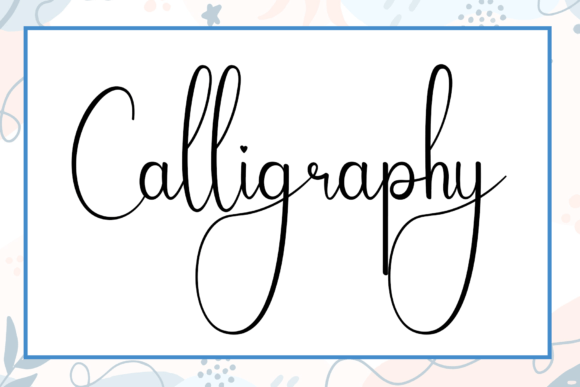
The Sweet Charm of Calligraphy Font: A Designer’s Delight
I’ll never forget the time I was working on a wedding invitation project, and my client asked for a font that was ” elegant, yet playful” and “would make their guests feel like they’re part of a special celebration”. I scoured the internet, tried out dozens of fonts, but nothing seemed to fit the bill. That was until I stumbled upon Calligraphy Font – a sweet and friendly handwritten font that instantly captured the essence of the occasion. In this article, I’ll share my love for this charming font, its features, and how to make the most of it in your designs.
- ✅ Cute and Fun: Calligraphy Font is perfect for adding a playful touch to your designs, making it ideal for wedding invitations, cards, and other celebratory materials.
- ✅ Elegant yet Approachable: This font strikes the perfect balance between sophistication and friendliness, making it suitable for a wide range of projects.
- ✅ Easy to Read: Despite its decorative nature, Calligraphy Font remains highly legible, even at smaller font sizes.
- ⚠️ Limited Multilingual Support: While Calligraphy Font covers the basic English alphabet, it may not support more complex languages or special characters.
- ⚠️ Not Suitable for Body Text: Due to its decorative nature, Calligraphy Font is best used for headings, titles, or short paragraphs, rather than lengthy blocks of text.
The Designer Inspiration Behind Calligraphy Font
While the actual origins of Calligraphy Font are unclear, it’s easy to imagine a designer with a passion for handwriting and calligraphy creating this font. Perhaps they were inspired by the flowing scripts of traditional calligraphy, combined with a modern, playful twist. The result is a font that feels both timeless and fresh.
Q: Is Calligraphy Font suitable for body text?
A: No, Calligraphy Font is best used for headings, titles, or short paragraphs due to its decorative nature.
Q: Does Calligraphy Font support OpenType features?
A: Yes, Calligraphy Font supports OpenType features like ligatures and stylistic alternates, which can enhance your design.